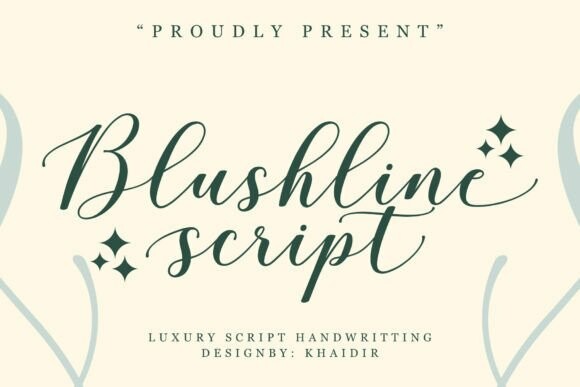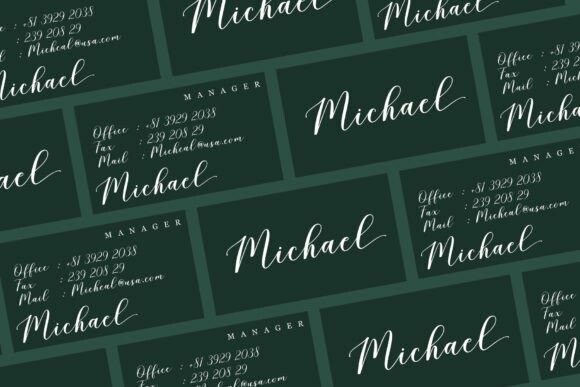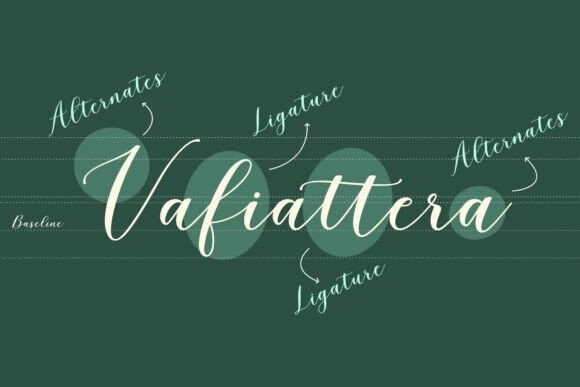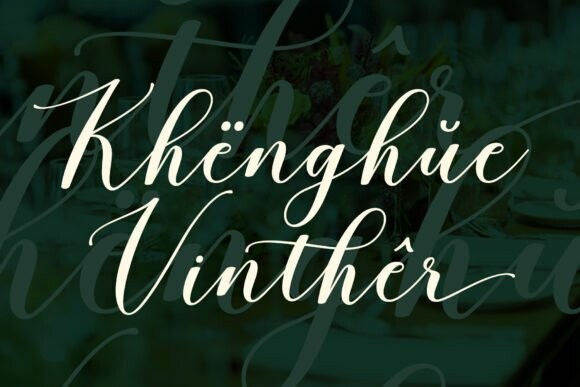
Blushline Script Font
Blushline Script Font is a beautiful and sweet calligraphy font. It’s fresh, modern and elegant. This font will look amazing in many projects, from wedding invitations and greeting cards to social media quotes, branding, and more!
Hand-drawn design elements allow you to create many beautiful typographic designs in an instant like branding, web design and editorial, prints, crafts, quotes, It’s great for logotypes, wedding invitations, romantic cards, labels, packaging, spelling of names and others.